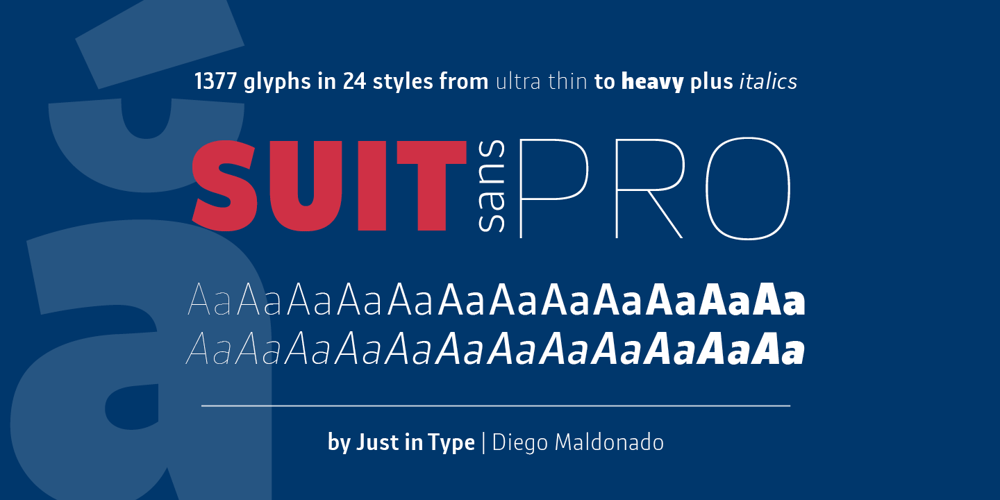
Suit Sans Pro Font Family was designed by Diego Maldonado and published by Just in Type. Suit Sans Pro contains 24 styles and family package options. Suit Sans Pro is a typeface designed for multi-purposes with a wide range of 12 weights plus italics. The large set of 1377 glyphs embraces a lot of latin languages, and it’s perfect for multi-national brands. Take a look at the specimen. Suit Sans Pro is too much for you? Take a look on Suit Sans STD, a simpler version for Suit Sans.